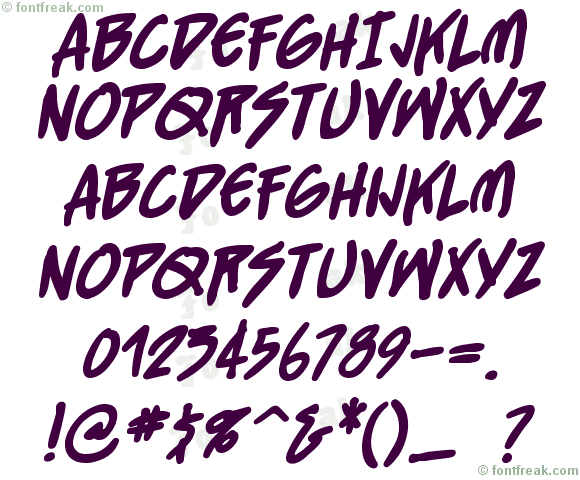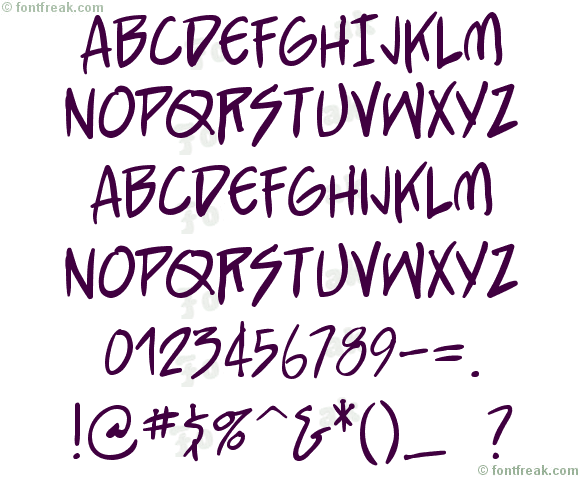
StraightJacket BB
StraightJacket BB Bold
About Straight Jacket
Discover the unique charm of the Straight Jacket font by Blambot Fonts, a striking display typeface that stands out with its bold, unconventional design. This font is characterized by its heavy stroke weight and sharp angles, giving it a rebellious yet playful appearance. The letters feature a mix of straight lines and unexpected curves, creating an edgy aesthetic that captures attention. The spacing is tight, enhancing the font's compact nature, making it ideal for impactful headlines and titles.
Straight Jacket is perfect for a variety of creative projects. Its distinct style makes it an excellent choice for movie posters, especially in the horror or thriller genres, where it can evoke a sense of urgency and intrigue. Additionally, it can be utilized effectively in graphic novels and comic book covers, where its boldness complements dynamic illustrations. Small business owners in the entertainment or artistic sectors will find this font valuable for branding materials, flyers, and promotional graphics. Content creators looking to add a touch of eccentricity to their social media posts or videos will also appreciate its unique flair.
What sets the Straight Jacket font apart is its ability to balance boldness with creativity, creating a visual impact that is both memorable and versatile. Whether you’re designing a striking poster or crafting a unique brand identity, the Straight Jacket font free download offers a powerful tool for expression, ensuring your designs stand out in a crowded marketplace.